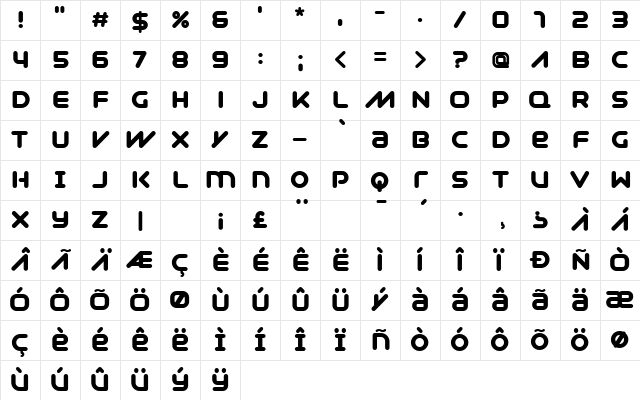
Complete Syntha Nova Black Bold glyph index. Displaying only characters natively supported by Syntha Nova Black Bold font.
Syntha Nova Black is a composed and adaptable typeface that performs quietly and consistently across a wide range of design contexts. Its bold stroke weight gives it real presence on the page.